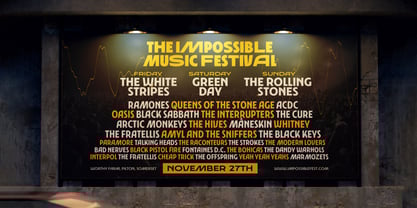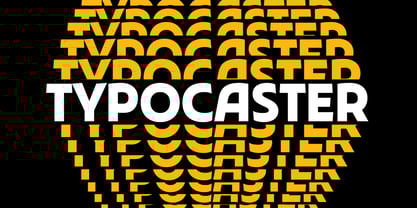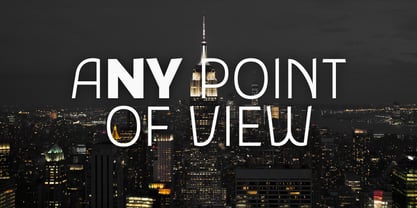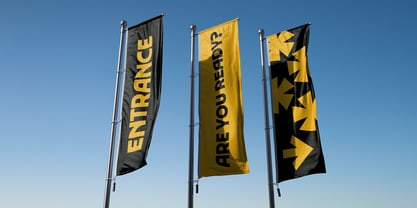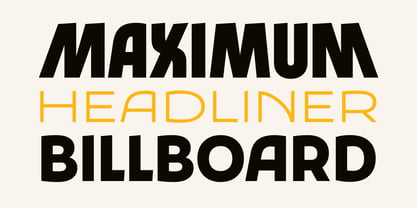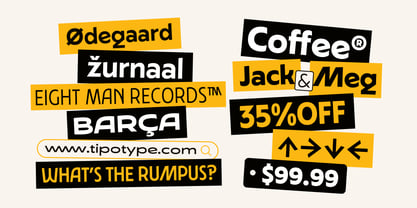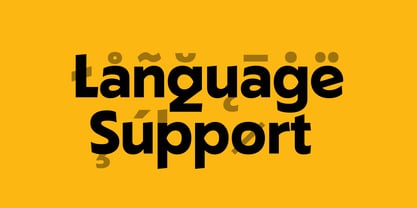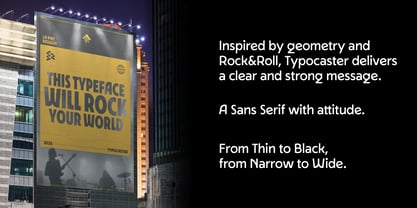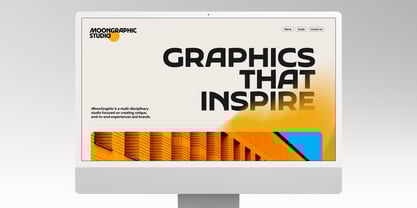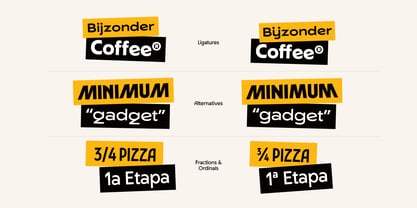
Typocaster
by TipoType
The Typocaster Font Family was designed by André Párraga and published by TipoType. Typocaster contains 35 styles and family package options. More about this family
Typocaster is a versatile sans serif family built with the energy of rock music, concerts, and festivals at its core. Designed to capture attention without sacrificing clarity, it strikes the balance between expressive shapes and solid readability. With five widths, seven weights, and OpenType features, Typocaster adapts to a wide range of design needs—from bold display work to reliable text settings. Supporting over 200 languages, it’s a typeface that speaks globally while carrying the raw spirit of live sound.
Designers: André Párraga
Foundry: TipoType